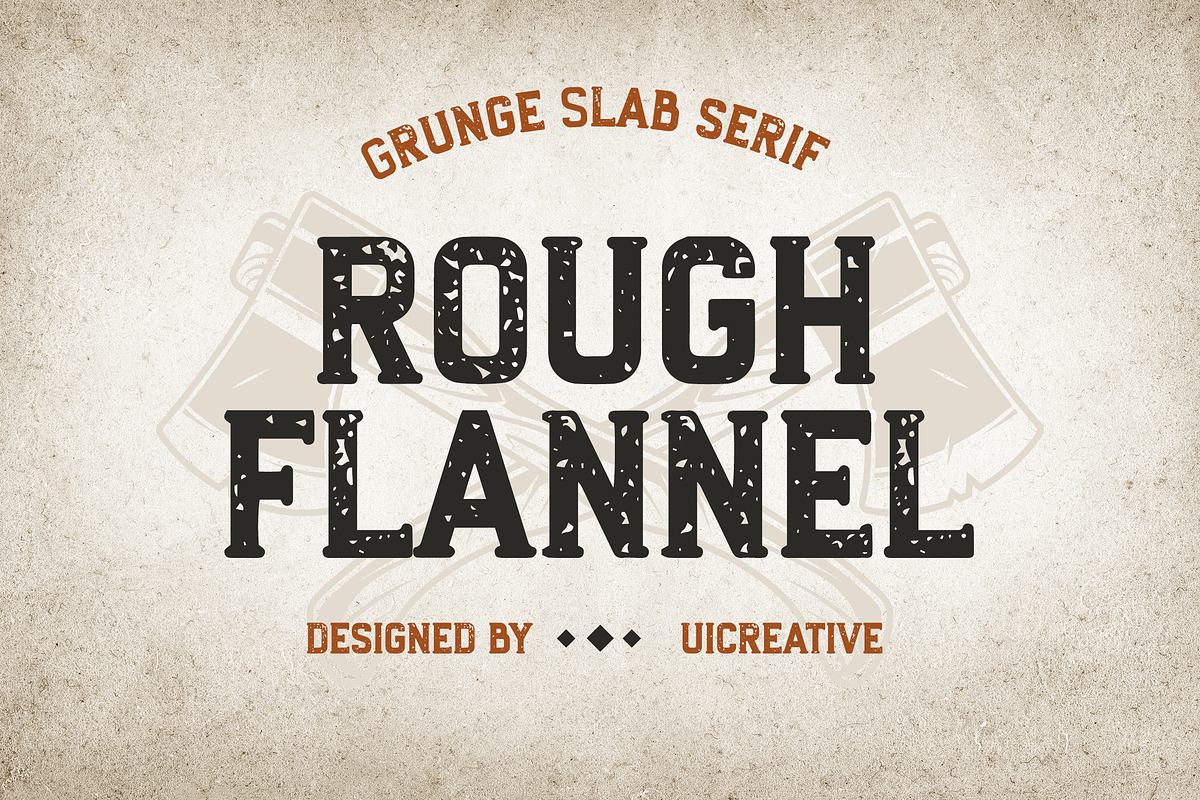
Rough Flannel Slab Serif Font Free Download
The Rough Flannel Slab Serif Font Free Download is a bold and rugged typeface that combines the classic slab serif style with a rough, textured finish. Perfect for creating vintage-inspired logos, posters, or any design needing a strong, impactful presence. Please note, for commercial use, a license must be purchased. You can download it for free for testing purposes.
With its solid and distinctive look, the Rough Flannel Slab Serif Font Free Download adds character and strength to your projects. Whether used for headlines, branding, or signage, this font brings a unique, rustic charm to your designs.